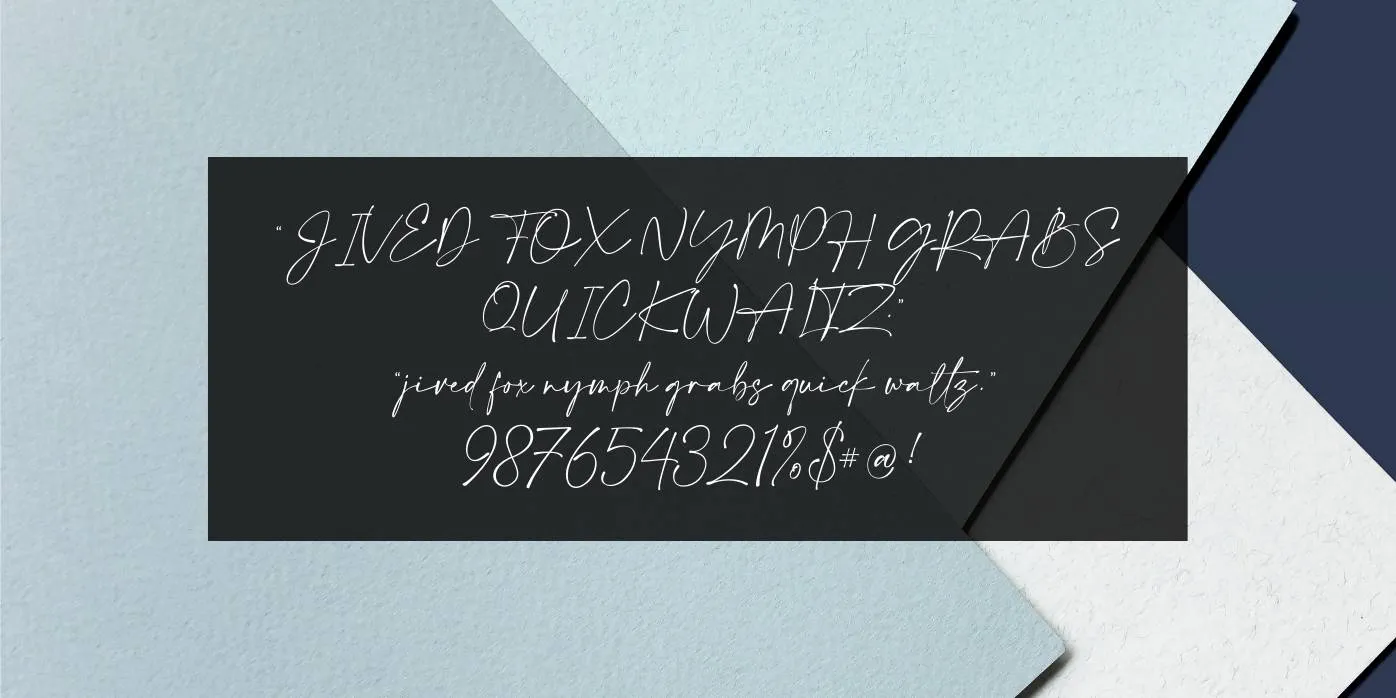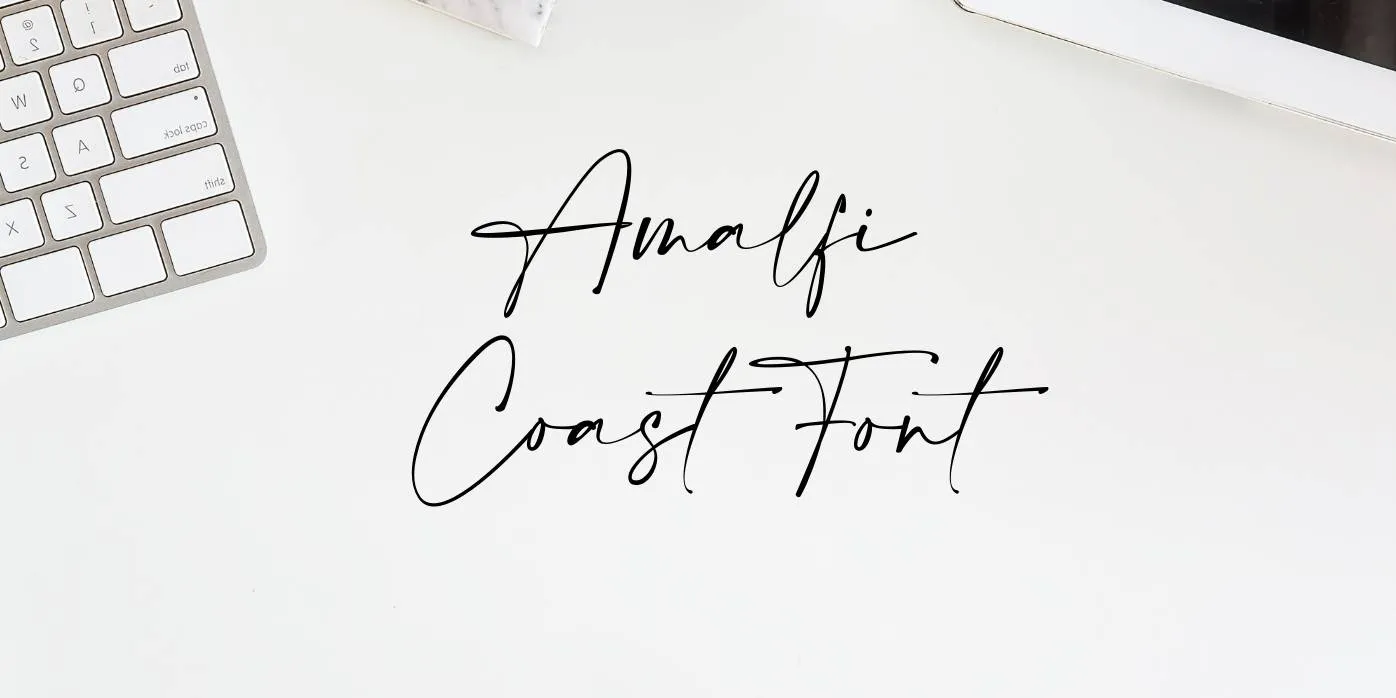
Amalfi Coast Font
Here, we present Amalfi Coast Font which belongs to the calligraphy typeface. The Amalfi Coast is an area of outstanding natural beauty located in southern Italy. This Typeface has been designed to look as close to the original Amalfi Coast as possible. You will use this amazing font in your own projects.
This family was created by Typeline studio. The Amalfi Coast Typeface is a calligraphy typeface with a unique design. A Brazilian type designer created it. This typeface’s copy and paste function are perfect for all text designs.